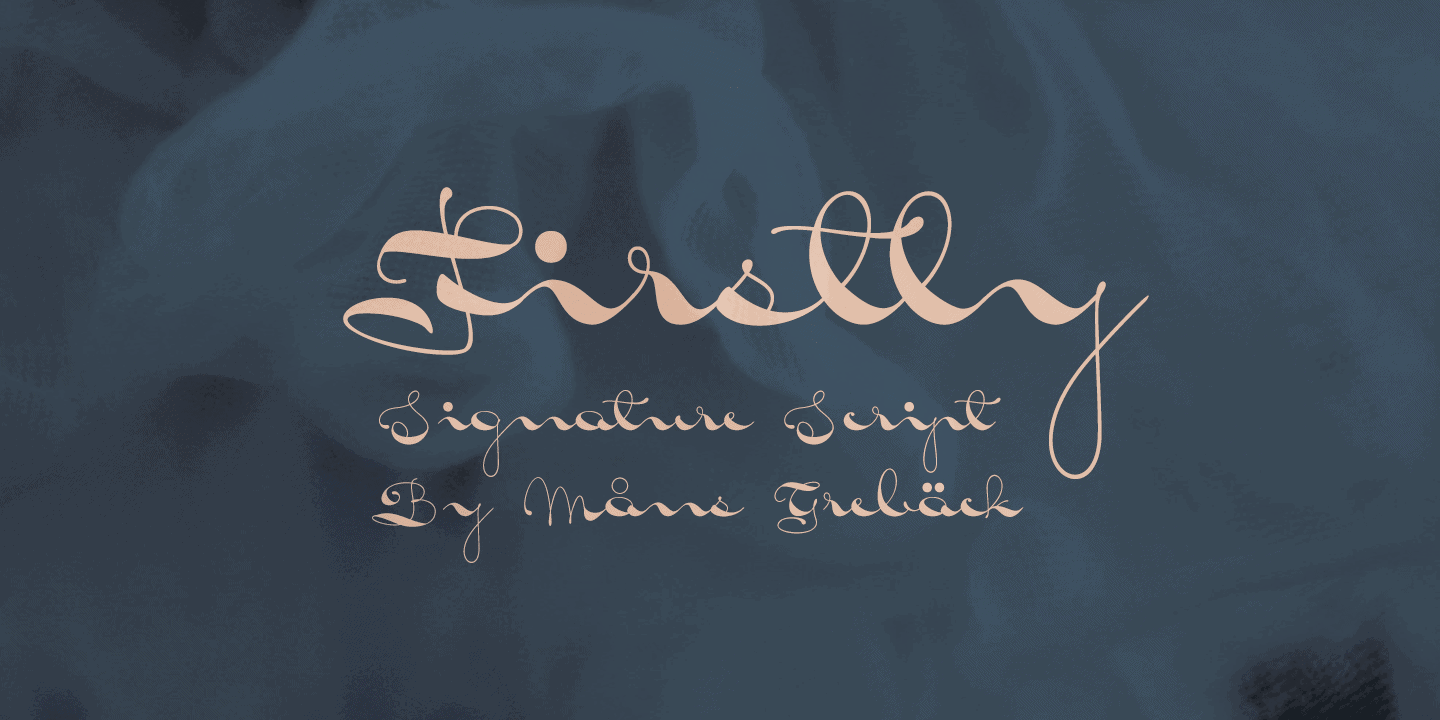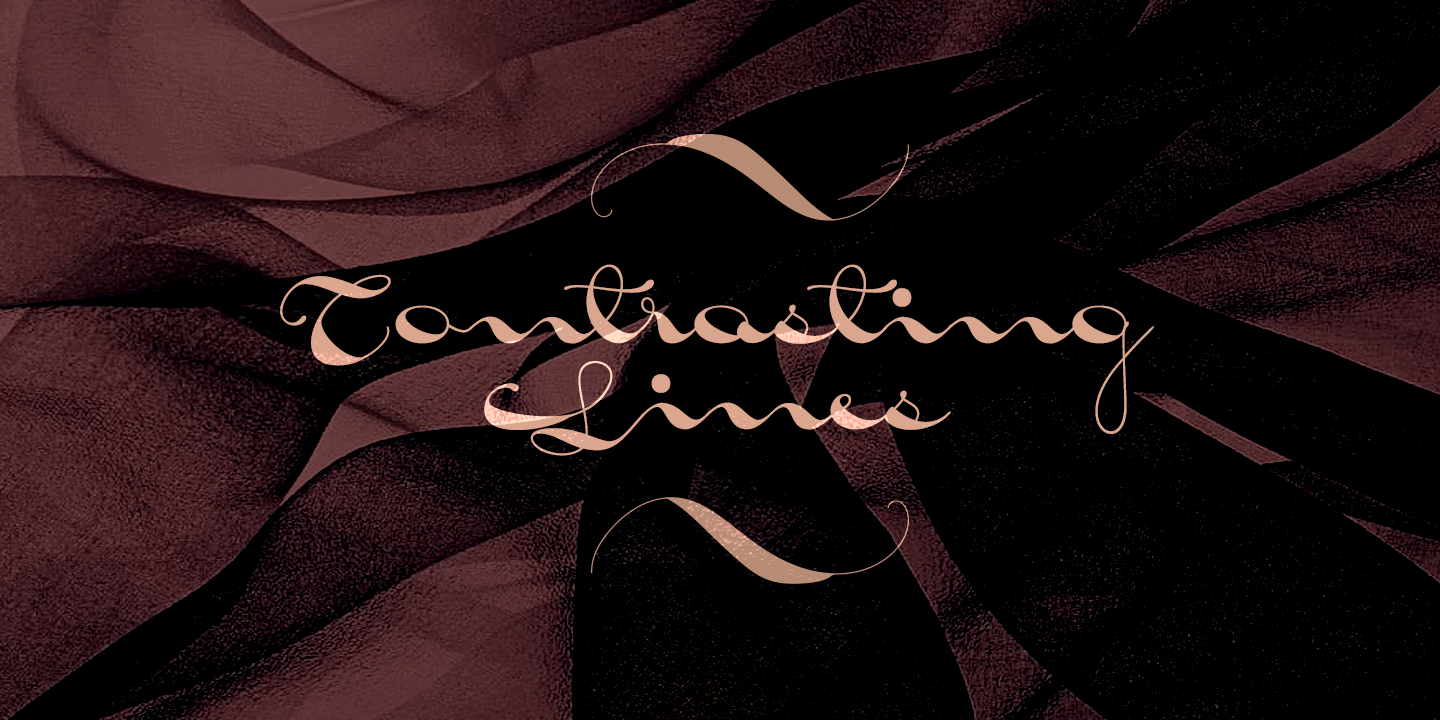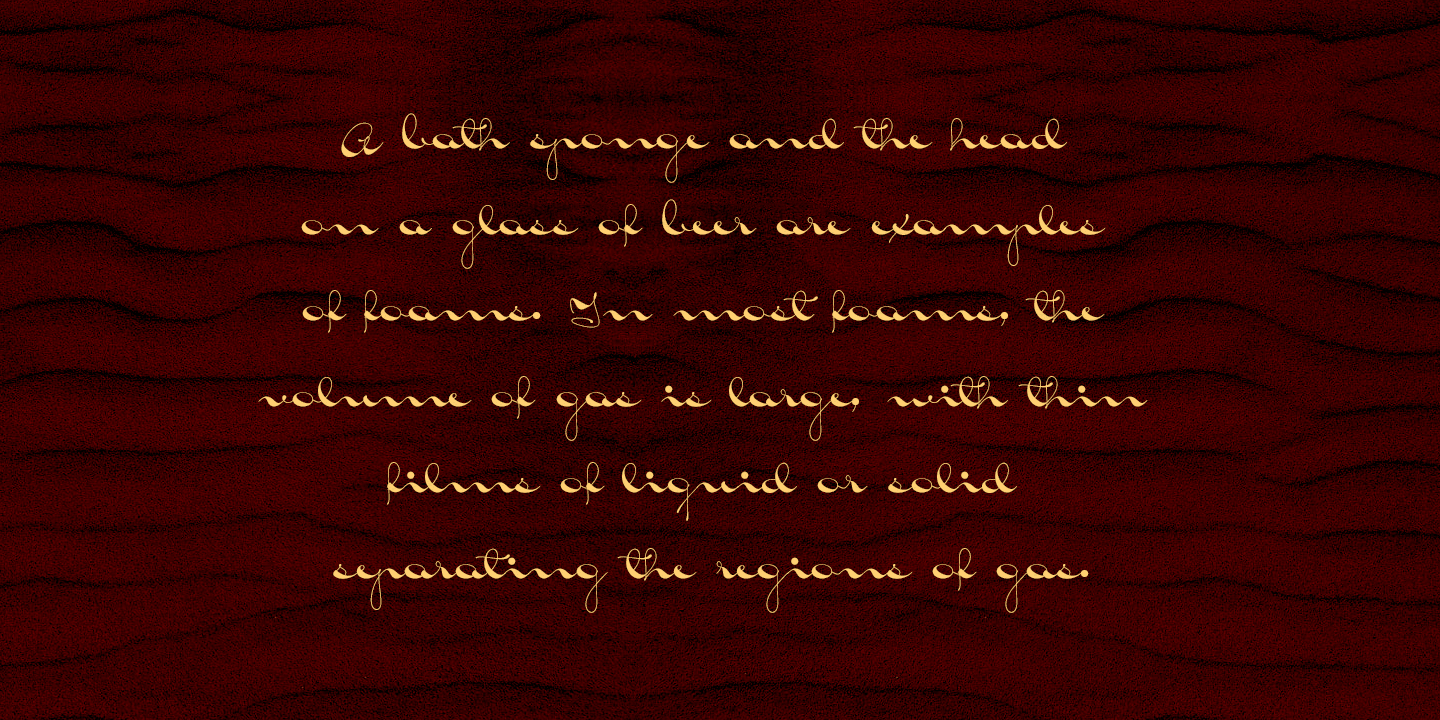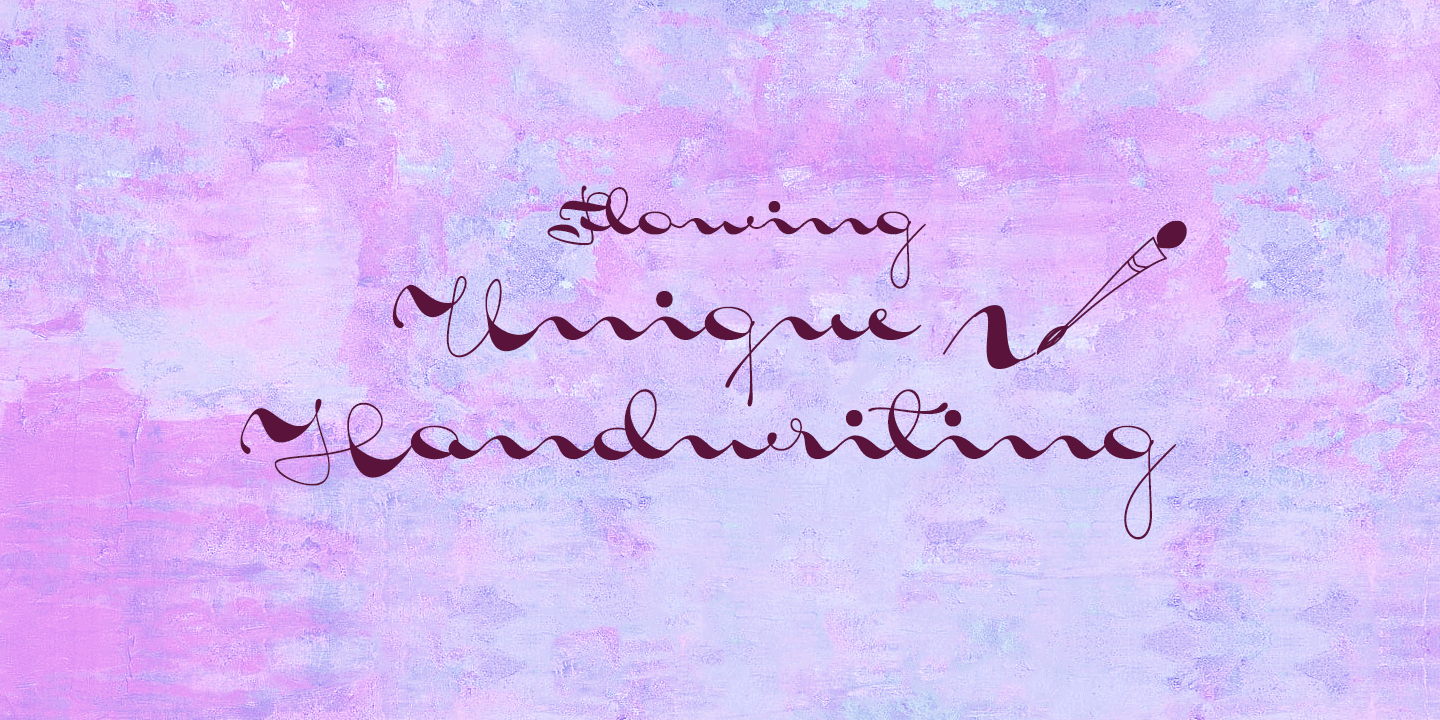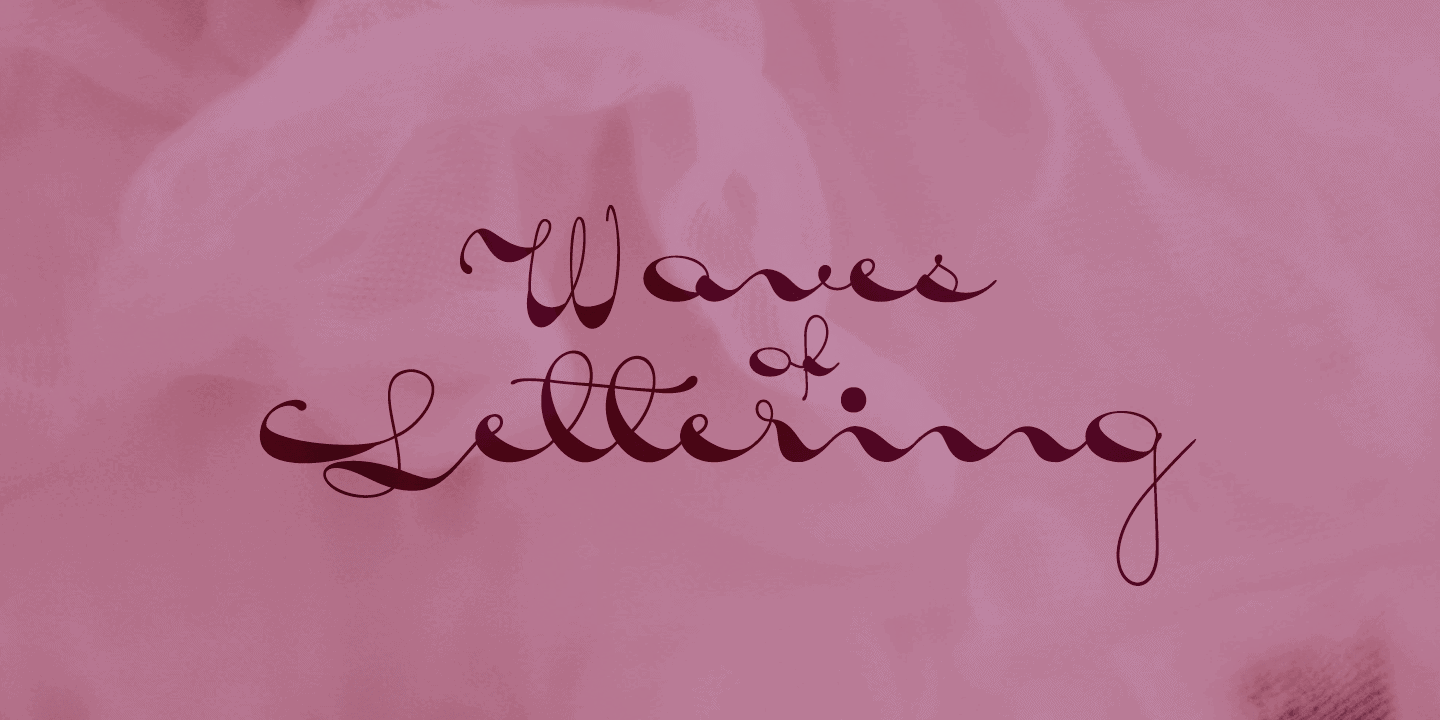
Firstly
Firstly is a script font with a unique character. It was created by Måns Grebäck during 2019 and 2020. Its wavy shapes and soft flow gives any project or logotype a well-balanced personality. It has an extensive lingual support, covering all European Latin scripts. The font contains all characters you’ll ever need, including all punctuation and numbers.